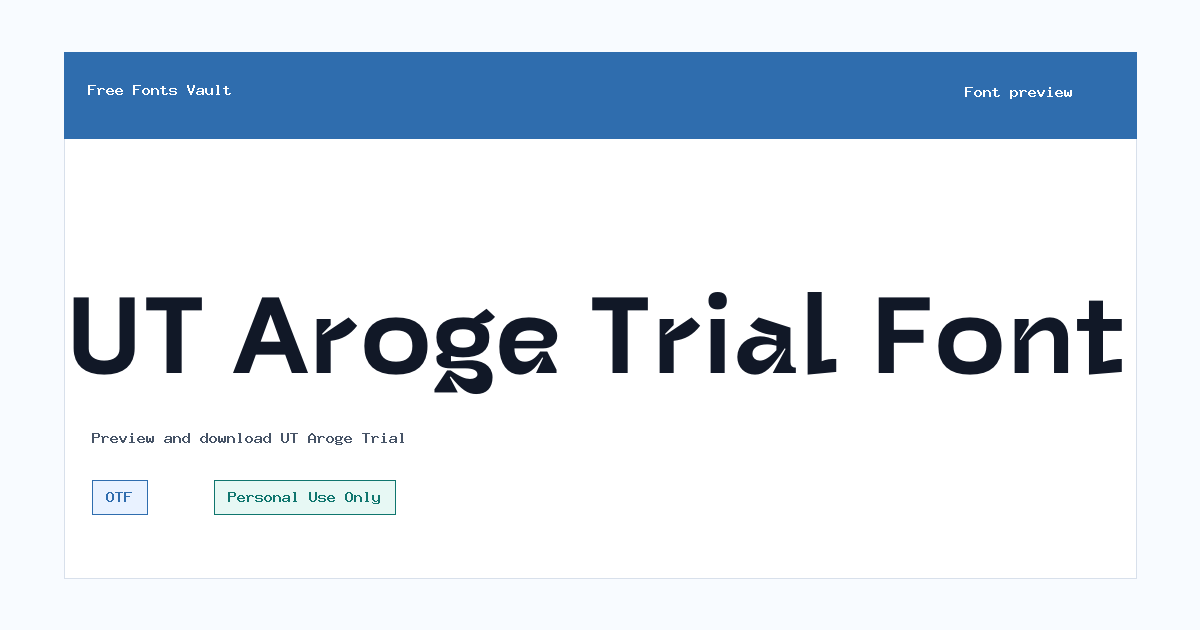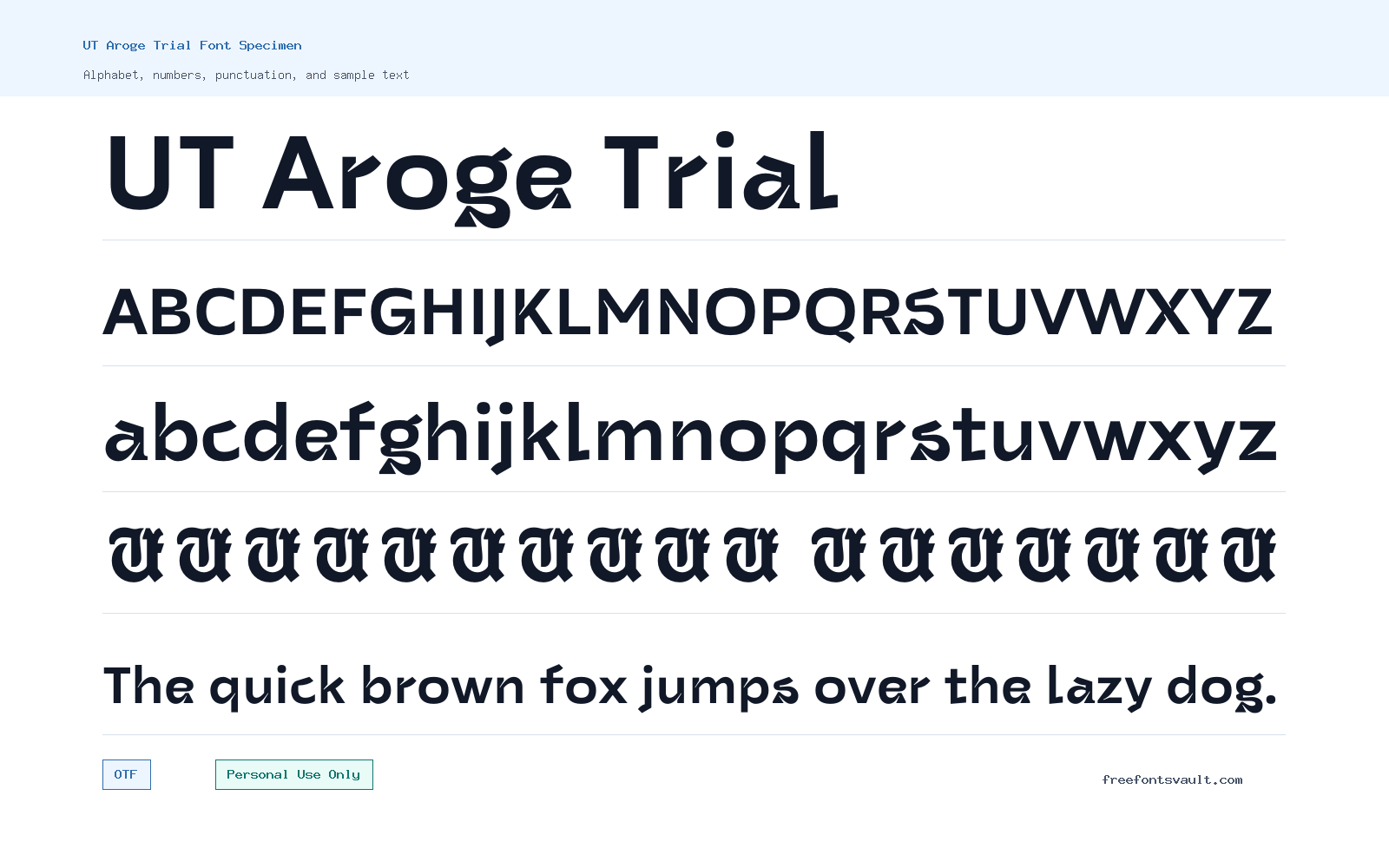
UT Aroge Trial
UT Aroge Trial font.
UT Aroge Trial is a personal-use font from Universitype Foundry with a clean sans serif direction and a straightforward trial-style release. It is best approached as a preview font for testing layouts, headlines, and visual ideas before checking the full license terms for wider use.
About UT Aroge Trial
UT Aroge Trial is listed as a sans serif font, and the available style is a regular weight OTF file. That makes it easy to test in common design software and in many font preview tools. Because the family name includes “Trial,” it is sensible to treat this version as a test or demo cut rather than a full production license. Use the preview field to inspect the letter shapes at different sizes, especially in words with round letters, diagonals, and tight spacing such as “logo,” “travel,” “modern,” or “portfolio.”
For practical design work, UT Aroge Trial is most useful in short settings where a clean regular sans serif can do the job without needing many weights. Try it for title mockups, social graphics, poster drafts, mood boards, personal branding studies, and website header experiments. Since only a regular 400 style is listed, it may not cover a complete typography system by itself. If you need hierarchy, pair it with a heavier display face for headings or a readable text family for long paragraphs. Test line spacing and letter spacing before committing, because trial fonts can vary in spacing behavior across apps.
- Regular 400 style suitable for basic headline, label, and layout testing
- Personal design experiments, mood boards, and concept previews
- Short text such as titles, posters, social graphics, and simple branding mockups
What style of UT Aroge Trial is available?
The listed variant is Regular with normal style and 400 weight.
What is UT Aroge Trial best used for?
It is best used for personal mockups, short headlines, poster drafts, social graphics, and layout testing where a regular sans serif style is enough.